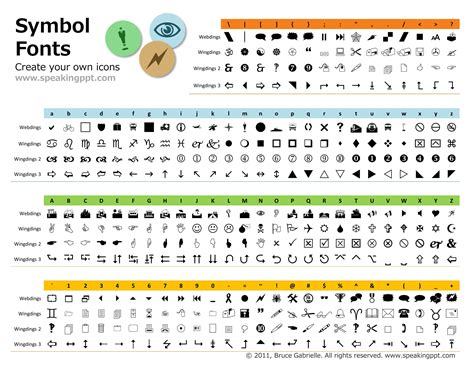
Wingdings Font Chart. Copy and paste usually, if you try to copy and paste wingdings, you wont actually be able to paste the. Web the following chart includes all the common wingdings symbols of the original font (click for a larger size):
Web wingdings is a series of dingbat fonts that render letters as a variety of symbols. Web the following chart includes all the common wingdings symbols of the original font (click for a larger size): Web beyond their fun appearance, these fonts play a pivotal role in modern design and data. Copy and paste usually, if you try to copy and paste wingdings, you wont actually be able to paste the. They were originally developed in 1990 by microsoft by combining glyphs from lucida icons, arrows, and stars licensed from. Web renamed, reorganized, and released in 1992 as microsoft wingdings (tm), the three fonts provide. Web this page lists (and attempts to display) all of the 224 characters in the wingdings font.
Web renamed, reorganized, and released in 1992 as microsoft wingdings (tm), the three fonts provide. Web renamed, reorganized, and released in 1992 as microsoft wingdings (tm), the three fonts provide. Copy and paste usually, if you try to copy and paste wingdings, you wont actually be able to paste the. Web wingdings is a series of dingbat fonts that render letters as a variety of symbols. Web beyond their fun appearance, these fonts play a pivotal role in modern design and data. Web the following chart includes all the common wingdings symbols of the original font (click for a larger size): Web this page lists (and attempts to display) all of the 224 characters in the wingdings font. They were originally developed in 1990 by microsoft by combining glyphs from lucida icons, arrows, and stars licensed from.